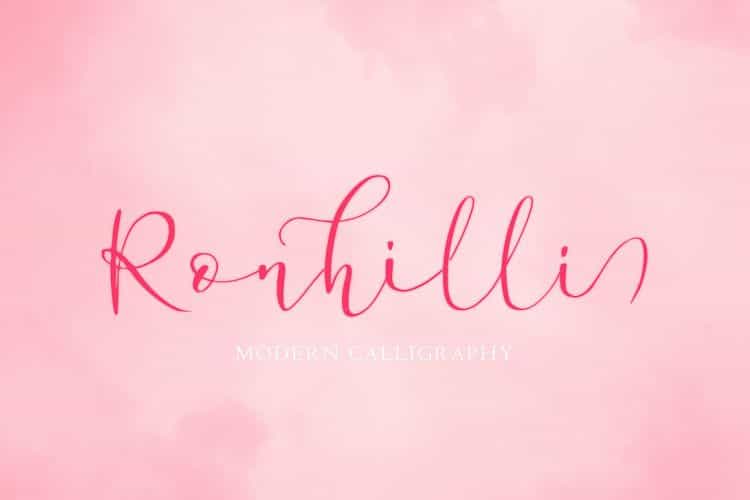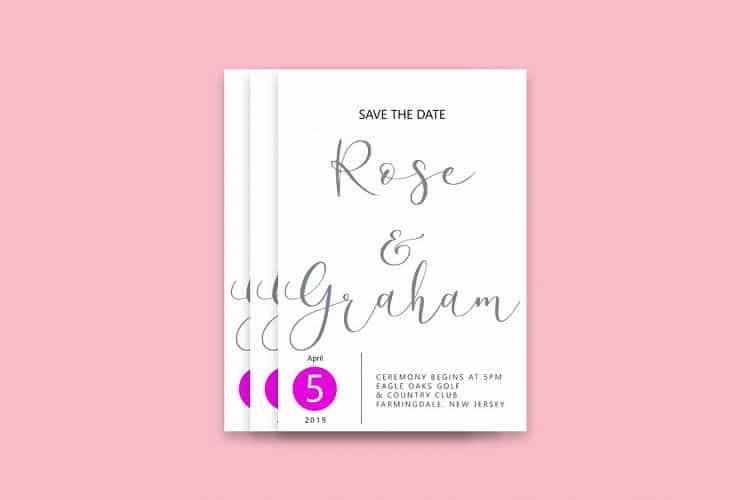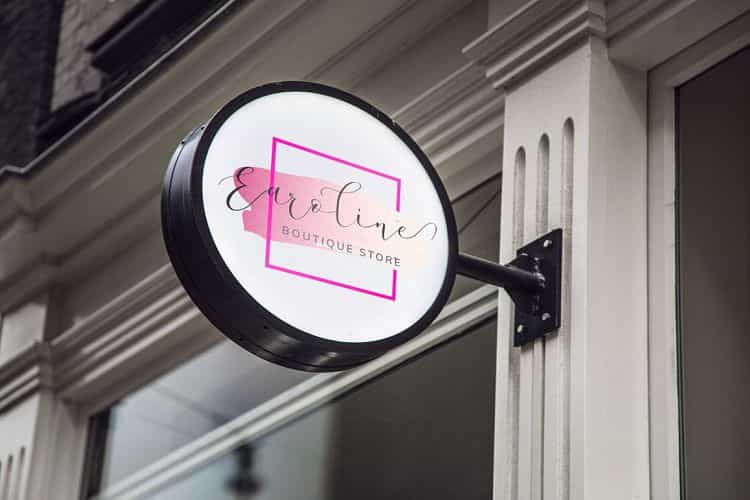
Meet the Ronhilli Font designed by JunCreative. It’s perfect for your projects like invitation designs branded stationery designs, weddings, birthdays and any other creative endeavors.